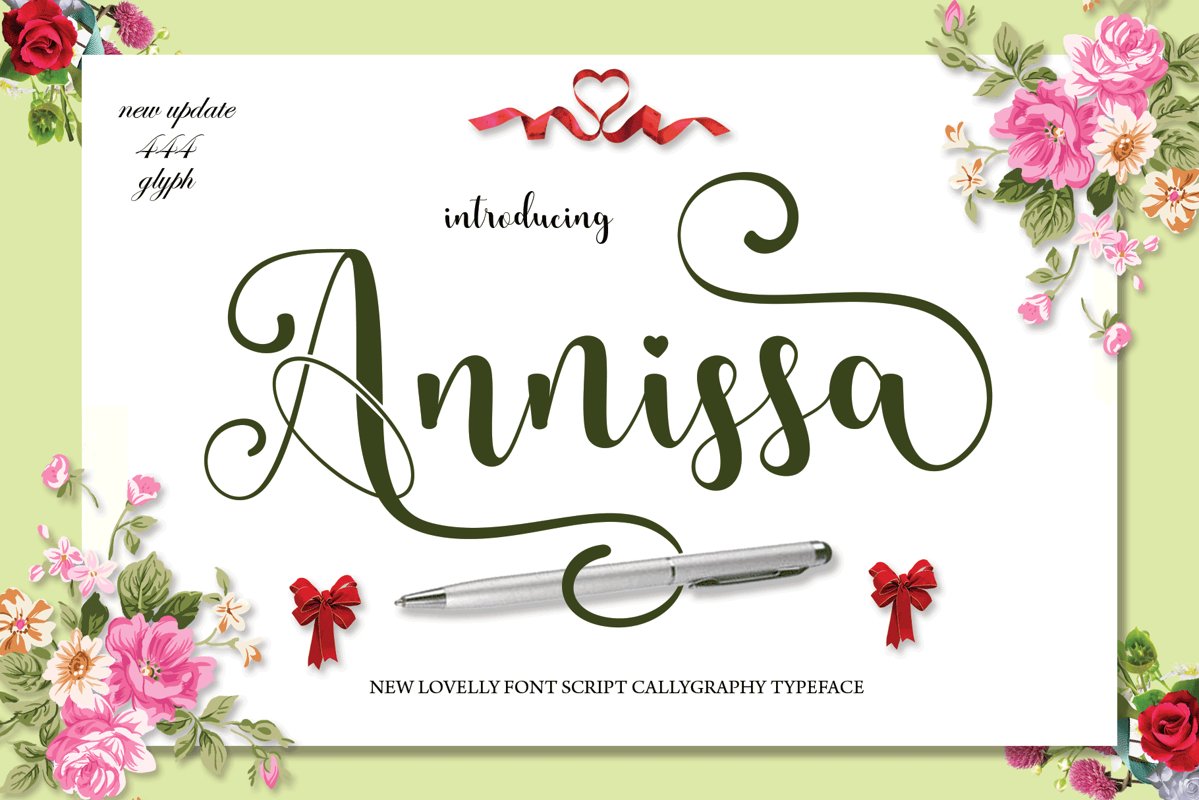
Annissa
Anissa
Annissa Modern Calligraphy. This font was designed by handwriting, and it has a modern and unique forms of calligraphy, the writing style is very natural.
The Features of this fonts is;
Standart ligatures
Stylistic Alternates
Contextual Alternates
Stylistic sets